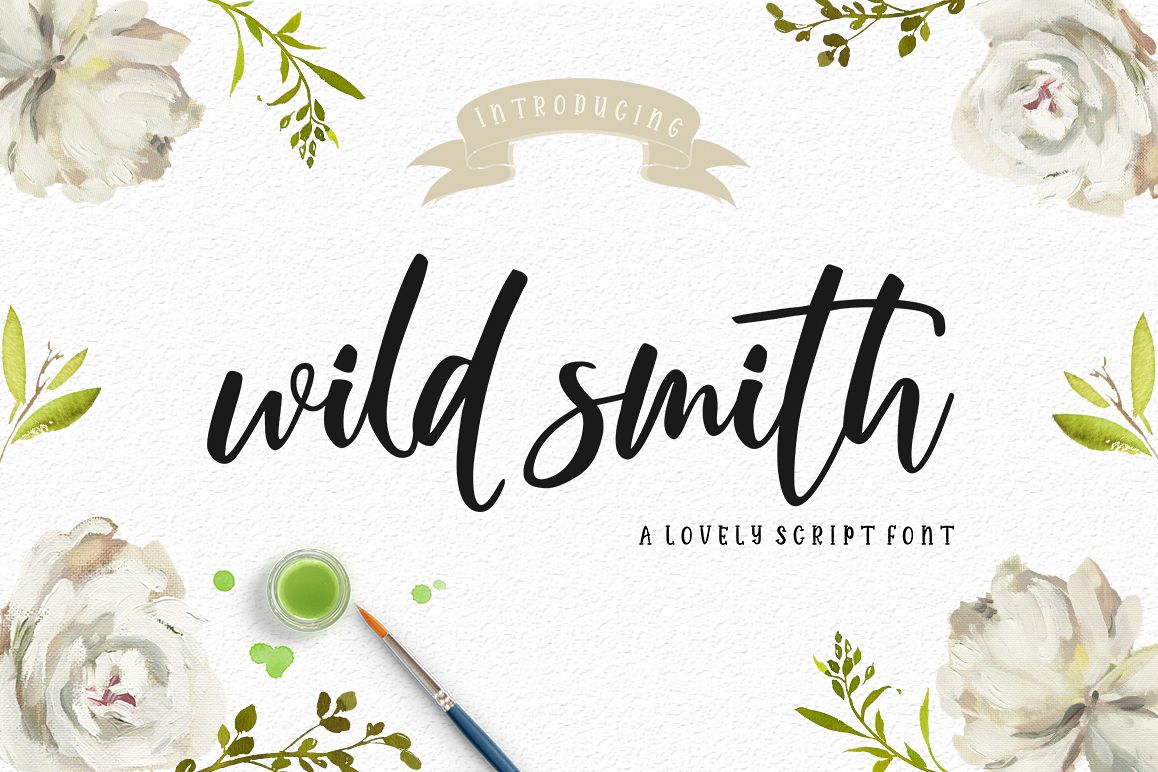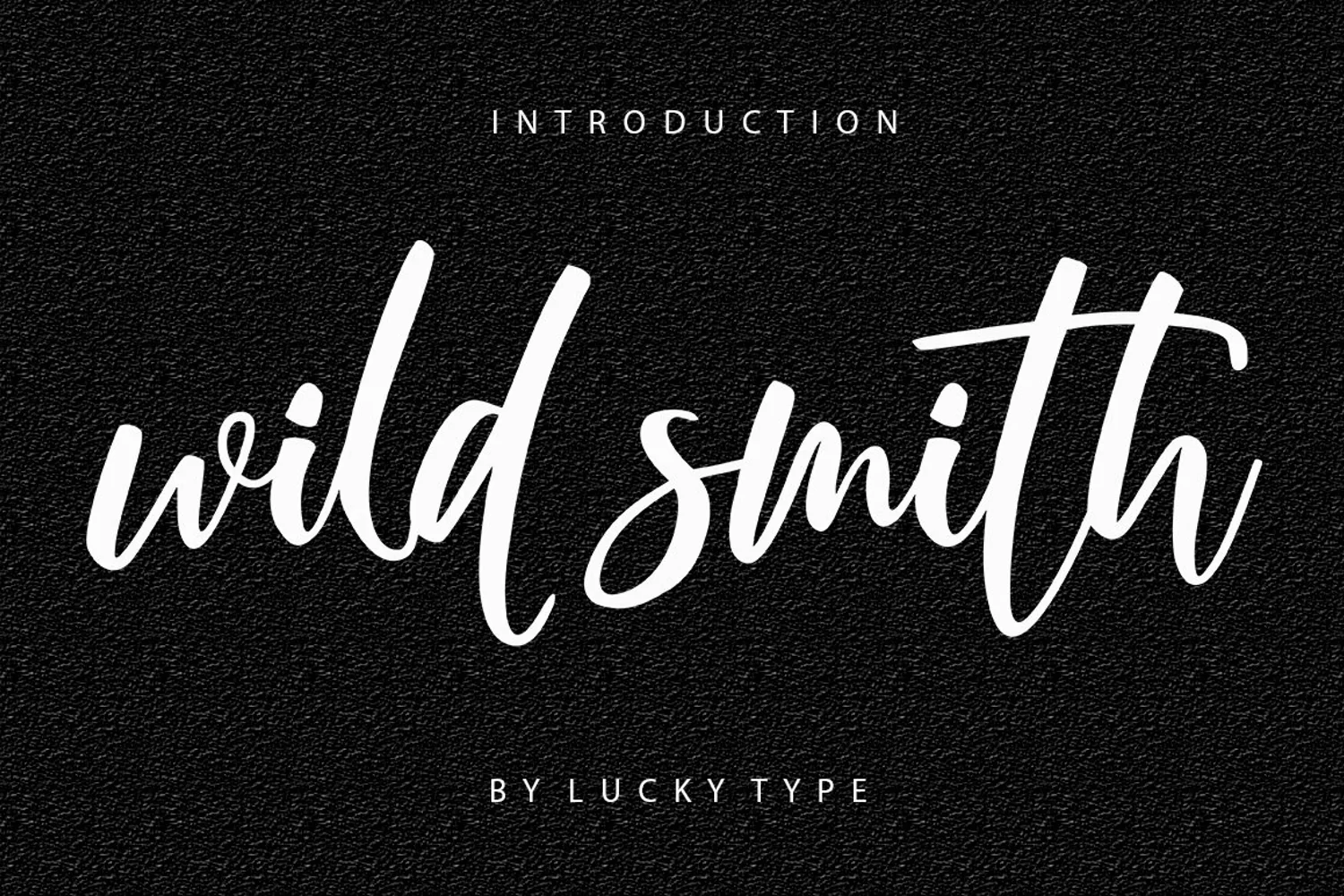
Wild Smith Script is a new modern script font with an
irregular baseline. Trendy and feminine style.Wild Smith looks lovely on
wedding invitations, thank you cards, quotes, greeting cards, logos,
business cards and more. Perfect for using in ink or watercolour.
Including initial and terminal letters, alternates, ligatures and
multiple language support.